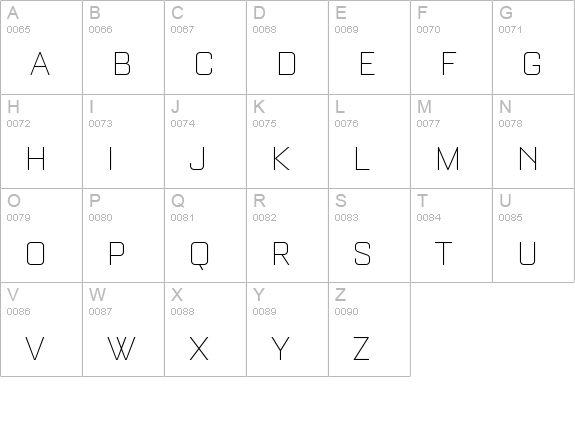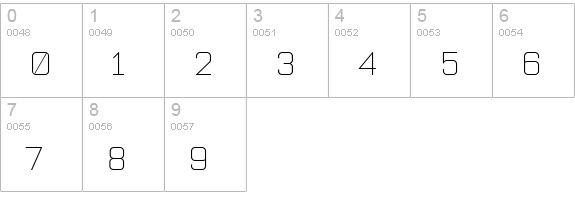
Bourgeois Light is a refined, elegant variant in the Bourgeois typeface family \xE2\x80\x94 well suited to elegant body text, refined sub-headings, and luxury branding.
Bourgeois Light font exudes elegance and sophistication with its sleek, modern design. The clean lines and graceful curves of this typeface make it perfect for adding a touch of refinement to any project. Whether you're designing a wedding invitation, a business card, or a website, Bourgeois Light will elevate your work to a new level of style. The best part? Bourgeois Light is available for free download at FontsMarket.com. You can easily access this exquisite font and incorporate it into your designs without any cost. Don't miss out on the opportunity to enhance your projects with the timeless beauty of Bourgeois Light. Download it today and let your creativity shine.